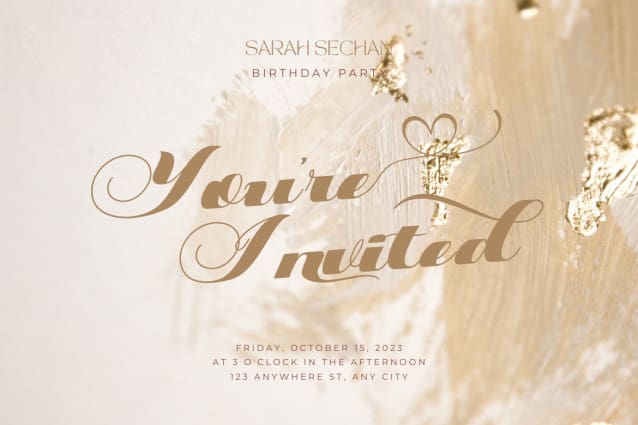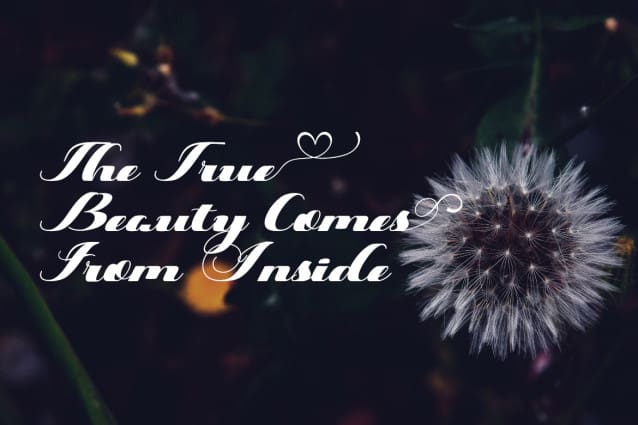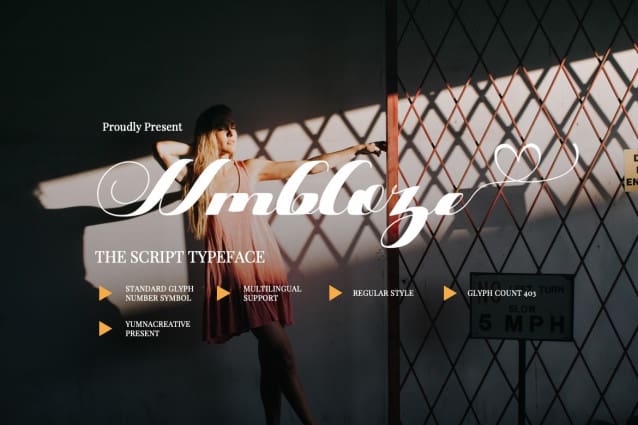
Umbloze Font
Umbloze Font – Retro Script Font.This Font is a delicate, elegant and flowing handwritten font. It has beautiful and well as a unique blend of ligatures a letter, so that the authors compose it with a and little swirly embedding, so that a modern font is formed and ready to make a statement by adding elegant and unique flair to your next design project. Add it to your most creative ideas and notice how it makes them come alive!